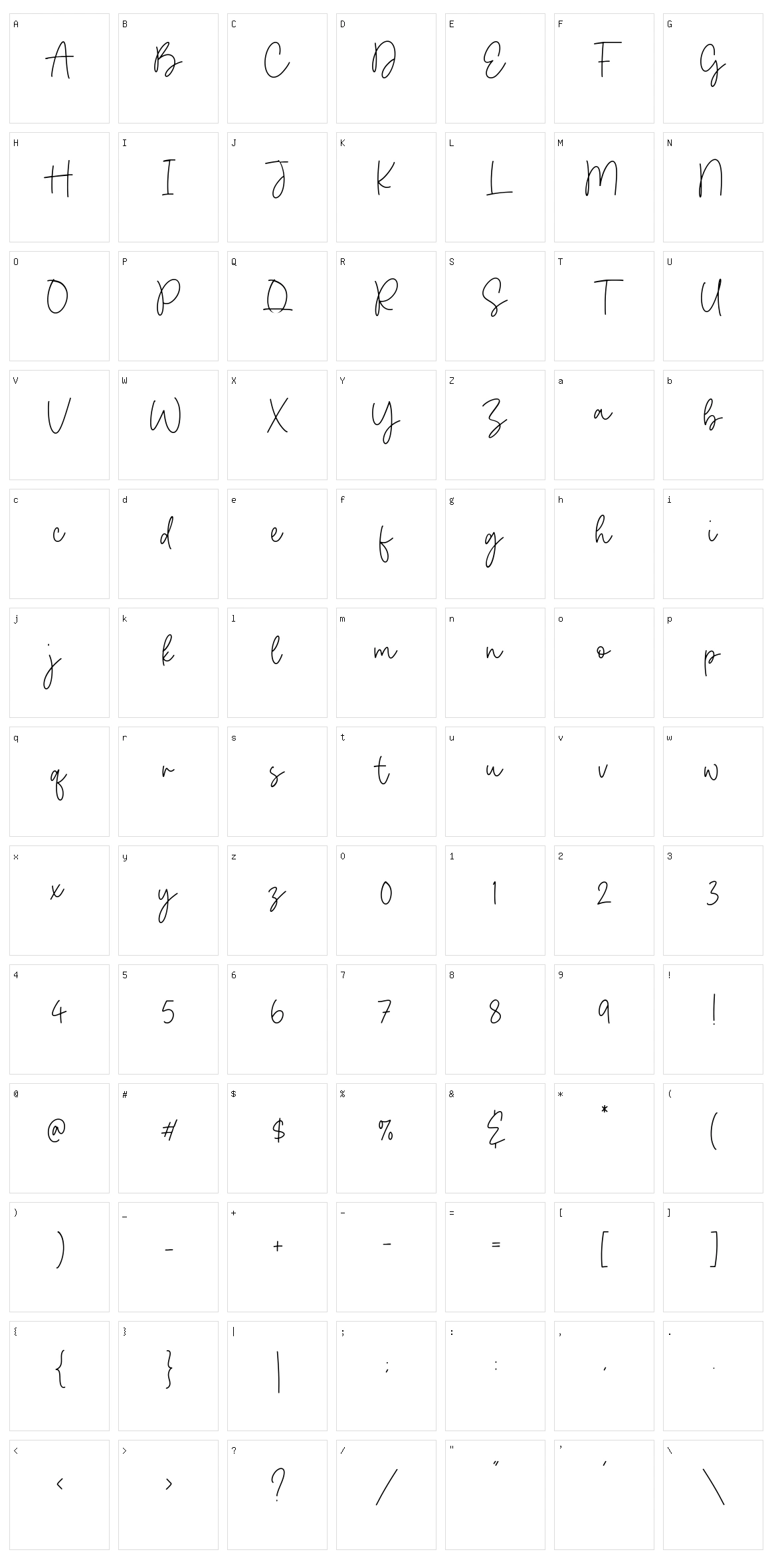
The free font Pumpkin Custard is carefully designed by Letterative Studio, showcasing a thoughtful balance of creativity and usability and falls under the Script font style. When you download the ZIP file, it contains only 38.81 KB of font files, making it lightweight and quick to download. Please review the license details below to understand permitted usage and distribution rights. If license information is not available, we recommend using this font for personal projects only or contacting the author directly for commercial usage permissions.